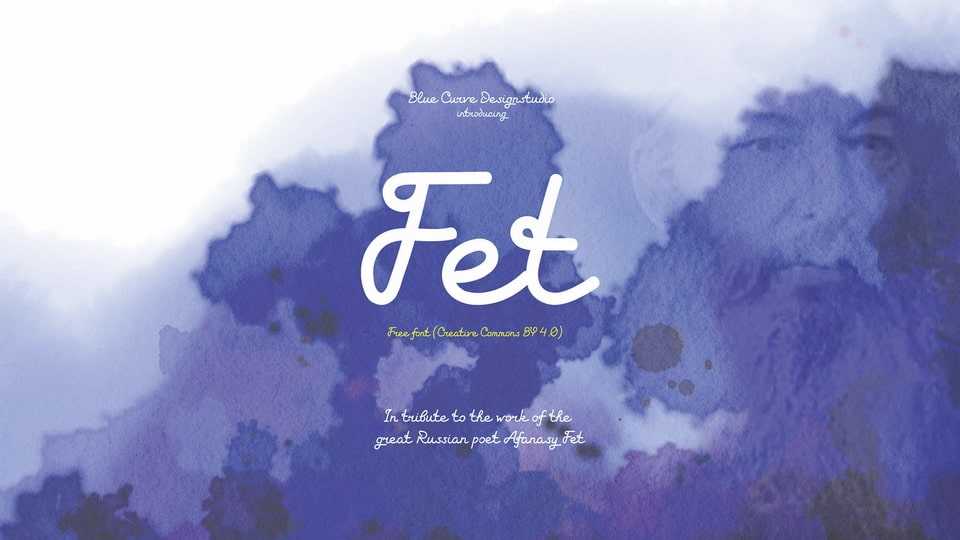
Download Fet font, a graceful and flowing script typeface that pays homage to the timeless elegance of classic calligraphy with its fluid, sweeping strokes and delicate curves.
Designer: Dimitri Antonov